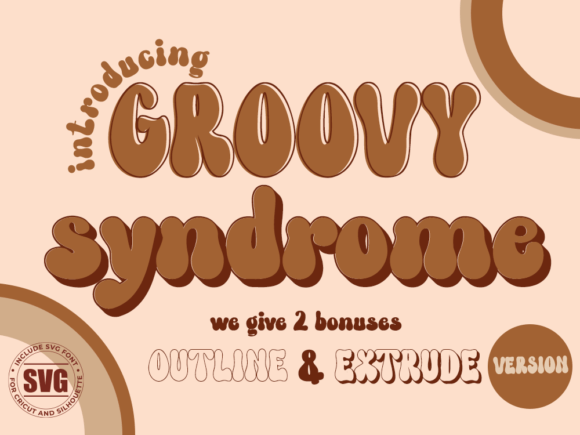
Introducing Groovy Syndrome Font, a bubbly display font created by Haksen that is guaranteed to give your designs a groovy look! If you're looking for a hand-drawn, retro font that will elevate your designs to the next level, Groovy Syndrome is the perfect choice for you!
With its unique style and playful vibe, Groovy Syndrome is sure to catch the eye of anyone who sees it. It's a font that's perfect for creating retro quotes and words, and it's incredibly versatile, making it ideal for a wide range of projects.
One of the great things about Groovy Syndrome is its flexibility. Whether you're designing shirts, stickers, logos, or greeting cards, this font will give your project that extra touch of retro style that will make it stand out from the crowd. It's also perfect for use in digital projects like Procreate, as well as in print projects like posters and magazines.
But that's not all! Groovy Syndrome is also ideal for social media and branding projects. With its fun, bubbly style, this font is sure to capture the attention of your followers and customers, making it a great choice for building your brand and growing your audience.